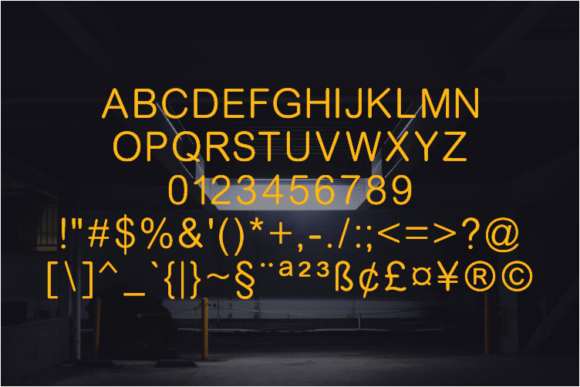
Introduction to Showing Font
As designers, we’ve all been there – staring at a blank page, trying to find the perfect font to bring our creative project to life. It’s a moment of pure inspiration, when the right font can make all the difference between a good design and a great one. And that’s exactly what happened when I stumbled upon the Showing Font – a modern sans serif font that’s as delicate as it is romantic.
With its perfect balance of elegance and simplicity, Showing Font is a game-changer for designers looking for a high-quality font to elevate their work. Whether you’re working on a wedding invitation, a logo design, or a quote for a social media post, Showing Font is the perfect design resource to add a touch of sophistication to your project.
Showing Font Key Features
- Unique characteristics include elegant lines, subtle textures, and a modern aesthetic, making it perfect for various design projects.
Honest Review: Showing Font
I recently came across the Showing Font, a free download that has been catching my attention in the design community. Upon closer inspection, I found that it’s a unique and versatile font perfect for creative projects.
- High quality design: The Showing Font boasts a professional finish, making it suitable for various applications.
- Easy to customize: The font’s adaptable nature allows for effortless modification to fit different design needs.
- No extensive character set: The font’s character set is somewhat limited, which might be a drawback for designers requiring a wide range of characters.
Overall, the Showing Font is a solid addition to any design resource collection. Its high quality and adaptability make it an excellent choice for creative projects, and the free download option is a definite bonus. However, its limitations should be taken into consideration before deciding to use it for commercial purposes.
Tips for Getting the Most Out of Showing Font
Showwing Font is ideal for creating presentations, posters, and other visual aids. It’s also great for use in logos, branding, and other design elements. With its high-quality design and transparent background option, this font is perfect for any creative project.